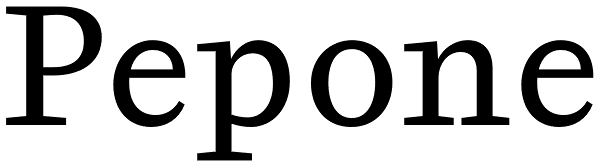
Pepone
This typeface is primarily optimized for the setting of belles-lettres. The regular styles are balanced to suit small text sizes and enable the reading of long portions of text. The development of the typeface was guided by the goal of creating a...